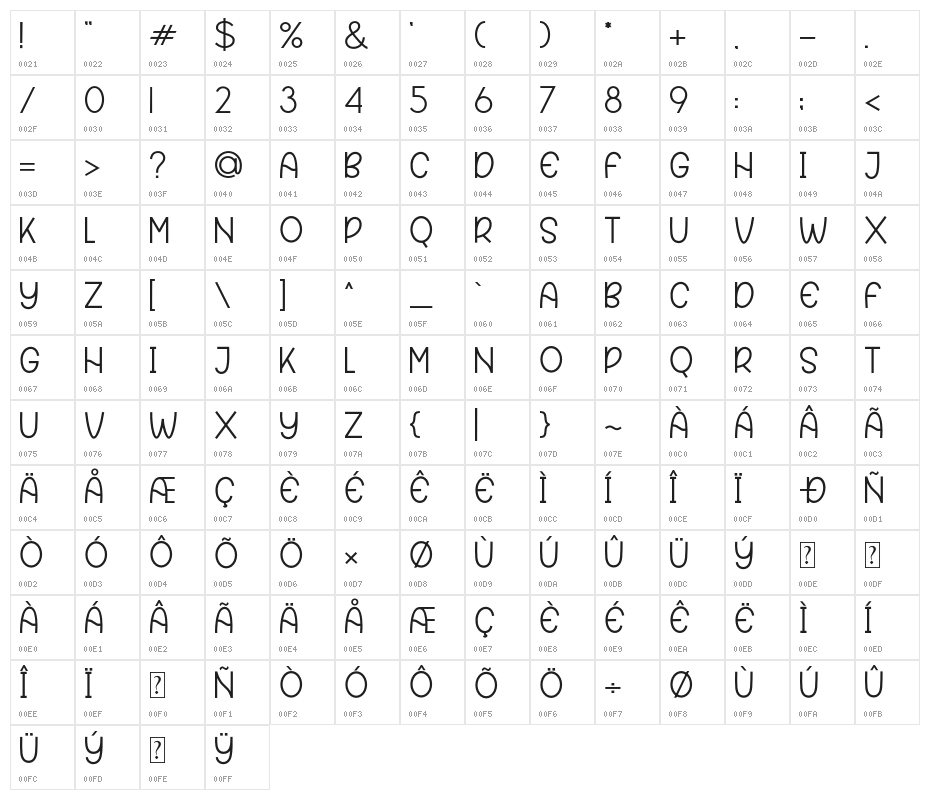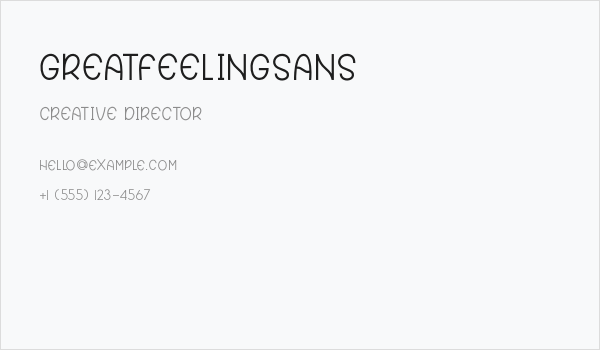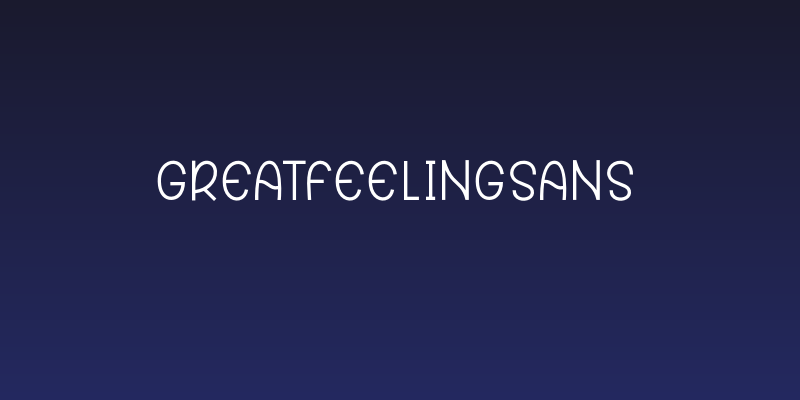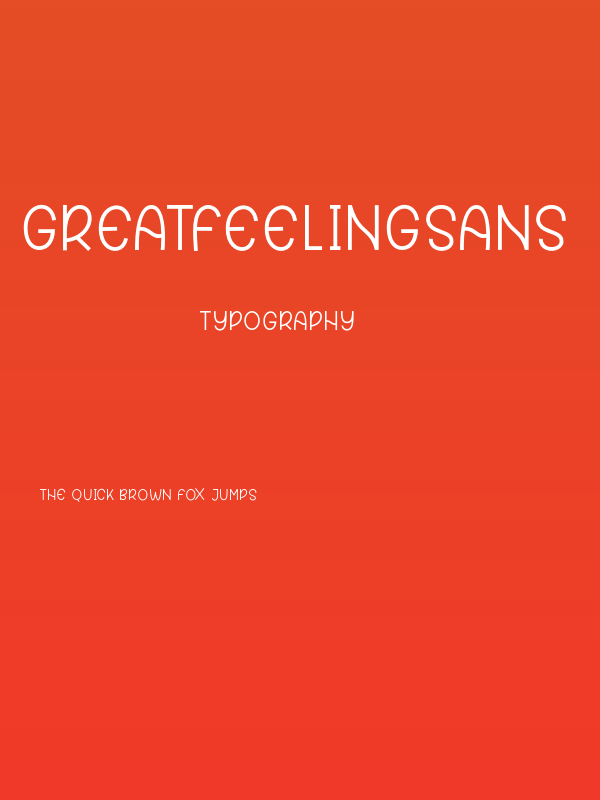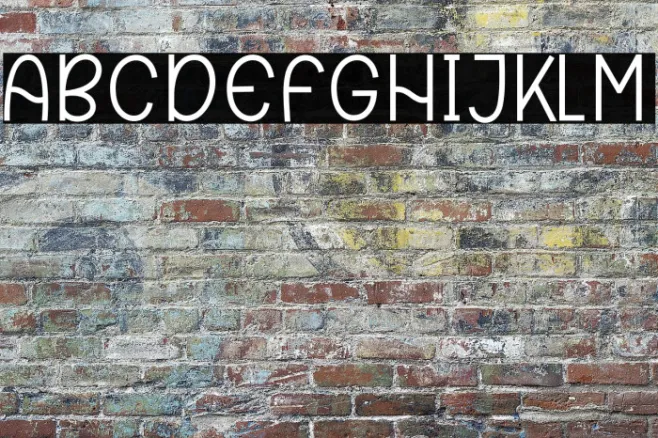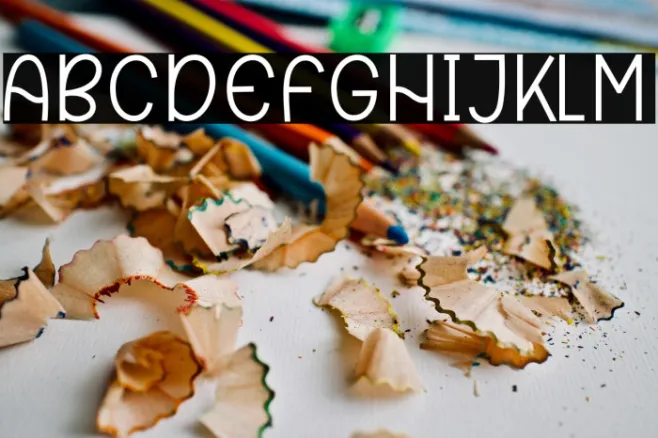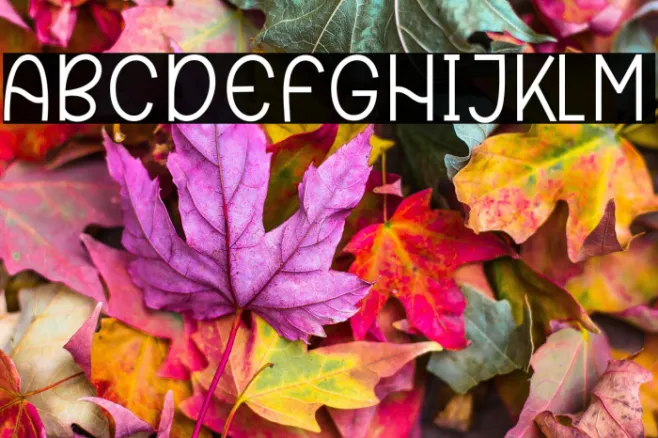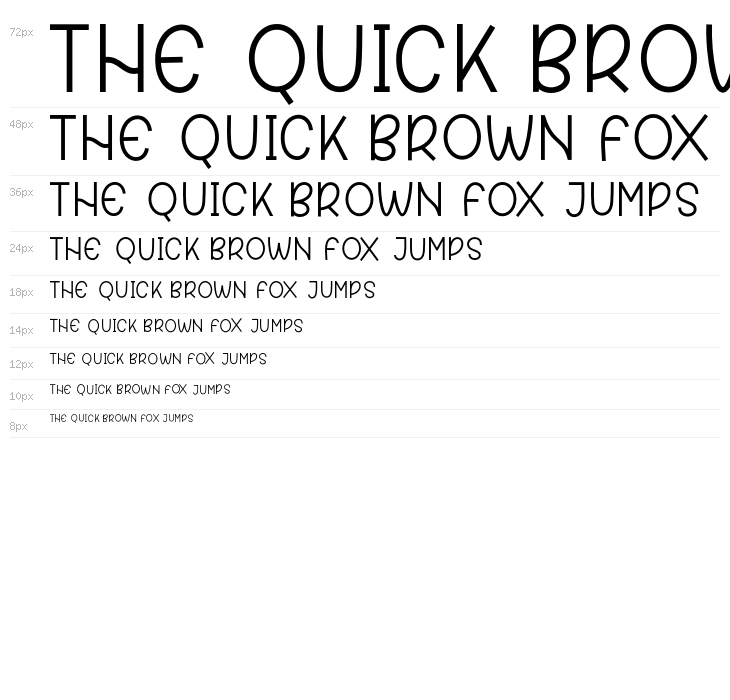
GreatFeelingSans Font
GreatFeelingSans Description
This font features a playful and modern sans-serif style with a unique twist. The characters are rounded and slightly condensed, giving it a friendly and approachable appearance. The uppercase letters have a consistent height, while the lowercase letters maintain a uniform baseline. The numerals are clear and easy to read, with a slight geometric influence. Special characters are well-defined, maintaining the overall aesthetic of the font. The design is clean and versatile, suitable for a variety of applications.
| Use Case | Headlines, Logos, Web design |
| Proposed Projects | Ideal for branding, children's books, playful packaging, and modern web design. |